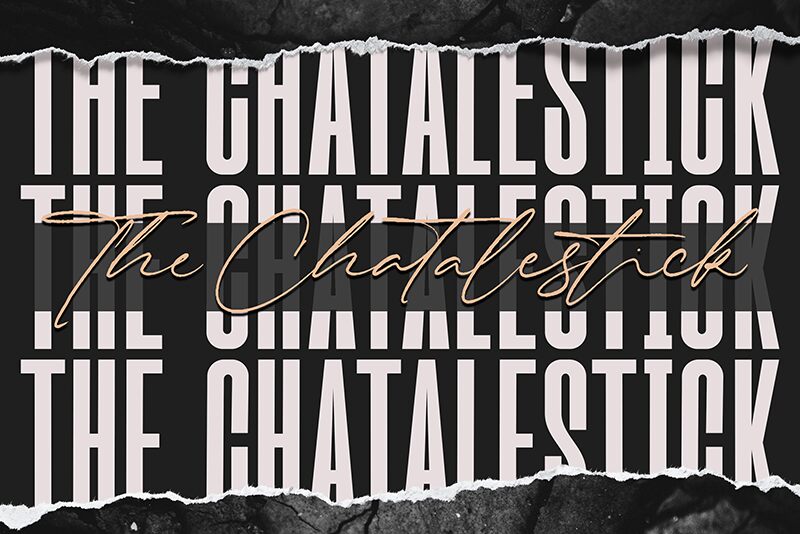
The Chatalestick Sans font from The Chatalestick family, crafted by Almarkhatype, is a striking sans serif font with a distinctly condensed style. This free font captivates with its bold, streamlined appearance, making it ideal for eye-catching headlines and modern design projects.
The unique character of The Chatalestick Sans sets it apart in both digital and print media. Its clean lines and confident presence make it perfect for branding, advertising, or editorial design where impact is crucial.